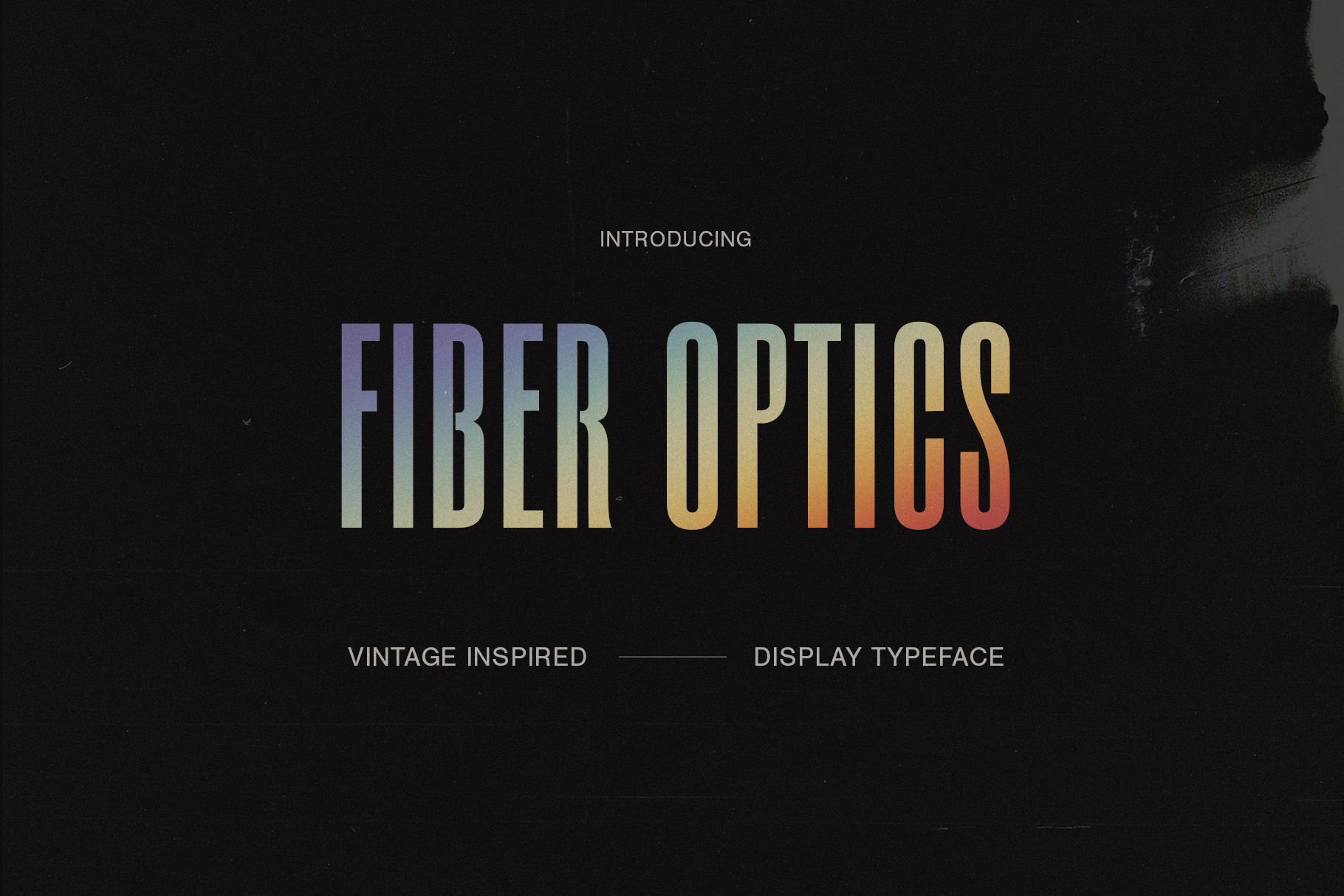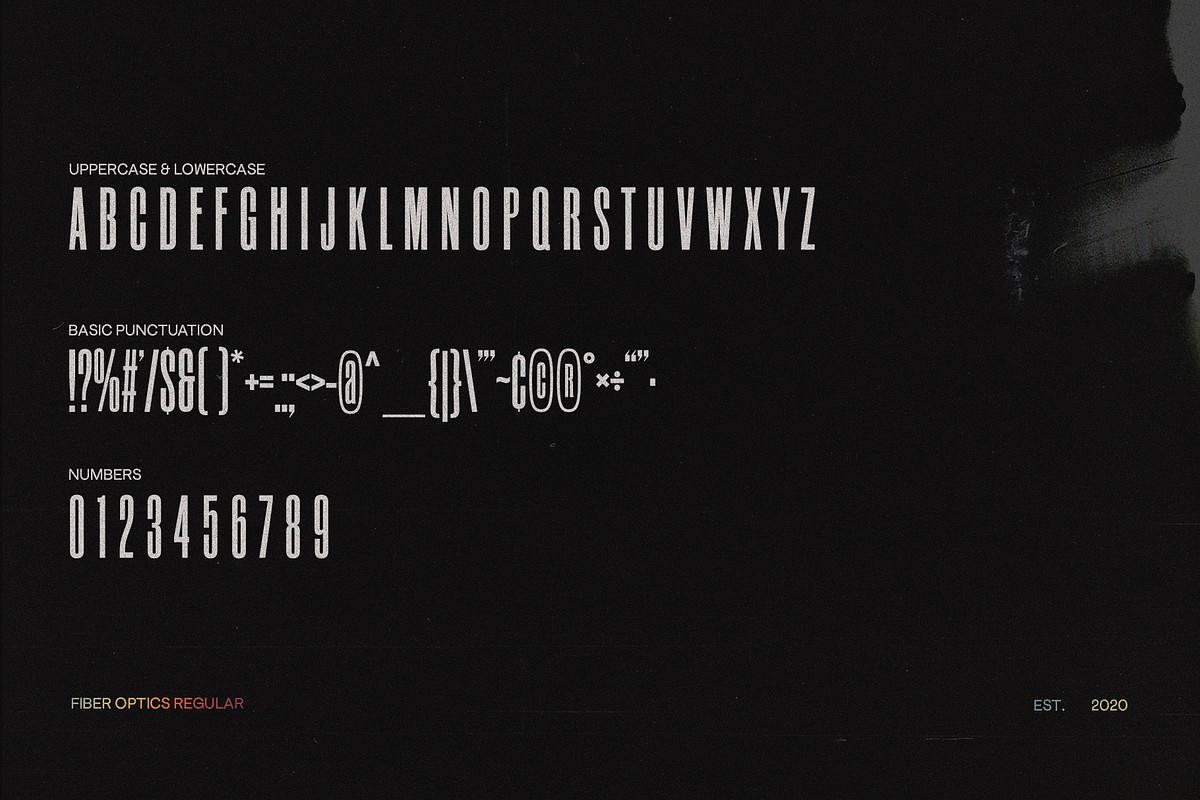
FIBER OPTICS Condensed Display Font
FIBER OPTICS is a clean, super-condensed display typeface that was inspired by mid-century modern design. Uppercase and lowercase letters are the exact same.
- Fiber Optics Regular: Uppercase letters, numbers, basic punctuation.
- English Language only. NO international accents or multilingual support at this time.